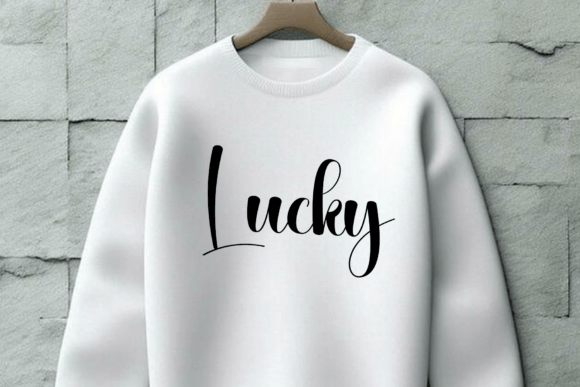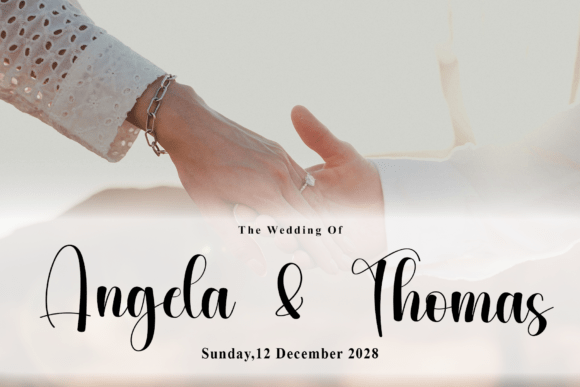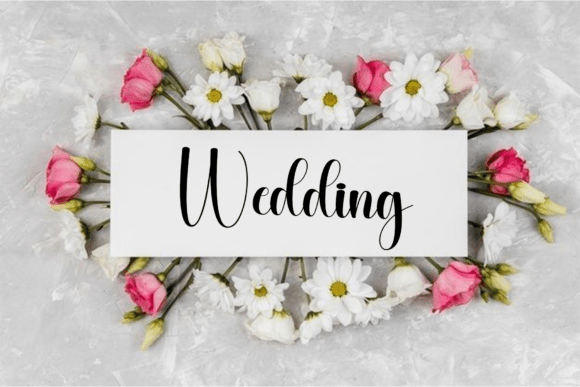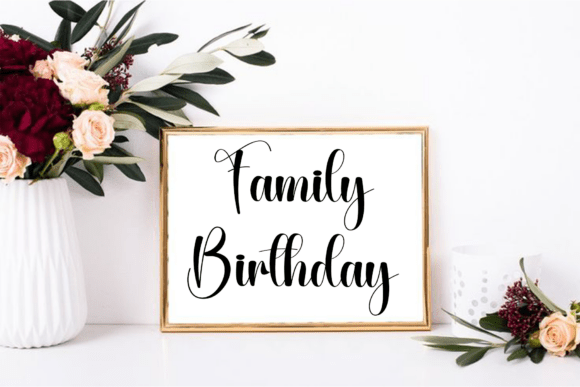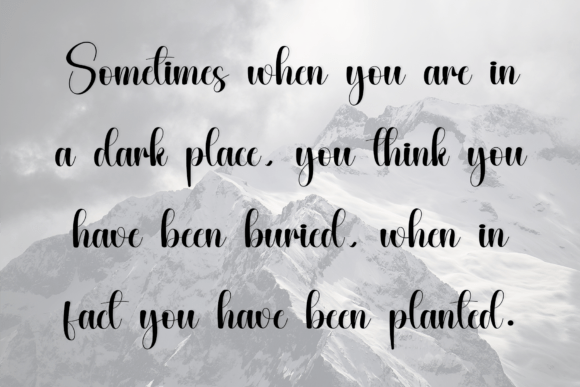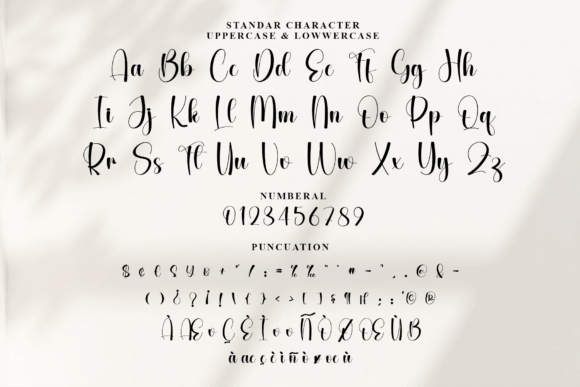
Introducing Family Calligraphy Font: Elegance Redefined
Are you a designer or crafter looking for a font that exudes sophistication and elegance? Look no further than the Family Calligraphy Font. This stunning script font is designed to capture the essence of modern luxury, making it perfect for a variety of high-end applications.
The Essence of Family Calligraphy
Family Calligraphy is an elegant and fluid handwritten script font that boasts graceful, high-contrast strokes with sweeping loops and fine, tapering terminals. These distinctive features give the letterforms a rhythmic and natural handwritten flow, making it perfect for those seeking a sophisticated and refined aesthetic.
Key Features of Family Calligraphy Font
• Elegant and Fluid Design: The font features a modern, sophisticated design that is both elegant and fluid.
• High-Contrast Strokes: The high-contrast strokes give the font a dramatic and luxurious feel.
• Sweeping Loops and Fine Terminals: The sweeping loops and fine, tapering terminals add a touch of sophistication and refinement.
• Expansive Horizontal Presence: The font’s expansive horizontal presence makes it perfect for headlines, titles, and other display text.
• Delicate Connections: The delicate connections between characters provide a high-end, personalized aesthetic.
Perfect for Luxury Applications
Family Calligraphy Font is a versatile font that can be used in a variety of luxury applications, including:
• Luxury Wedding Stationery: The font’s elegant and sophisticated design makes it perfect for wedding invitations, save-the-dates, and other wedding stationery.
• Intimate Event Branding: The font’s refined aesthetic makes it ideal for corporate events, galas, and other high-end events.
• High-End Editorial Signatures: The font’s luxurious feel makes it perfect for editorial signatures, such as those found in high-end magazines and publications.
• Sophisticated Lifestyle Photography Overlays: The font’s elegant design makes it perfect for adding a touch of sophistication to lifestyle photography overlays.
Why Choose Family Calligraphy Font?
There are many reasons why designers and crafters should choose Family Calligraphy Font for their projects. Here are just a few:
• Unique and Elegant Design: The font’s unique and elegant design sets it apart from other script fonts.
• High-Quality Typography: The font features high-quality typography that is both clear and legible.
• Versatile: The font is versatile and can be used in a variety of applications.
Tips for Using Family Calligraphy Font
Here are a few tips for using Family Calligraphy Font in your projects:
• Use it Sparingly: Because of its elegant and sophisticated design, it’s best to use Family Calligraphy Font sparingly. Use it for headlines, titles, and other display text.
• Pair it with Other Fonts: The font pairs well with other fonts, such as sans-serif fonts. Experiment with different pairings to find the one that works best for your project.
• Adjust the Size and Color: Adjust the size and color of the font to fit your project’s needs.
Family Calligraphy Font is a stunning script font that is perfect for designers and crafters looking for a sophisticated and elegant aesthetic. With its high-contrast strokes, sweeping loops, and fine terminals, this font is sure to add a touch of luxury to any project. Whether you’re working on a luxury wedding stationery, intimate event branding, high-end editorial signatures, or sophisticated lifestyle photography overlays, Family Calligraphy Font is the perfect choice.